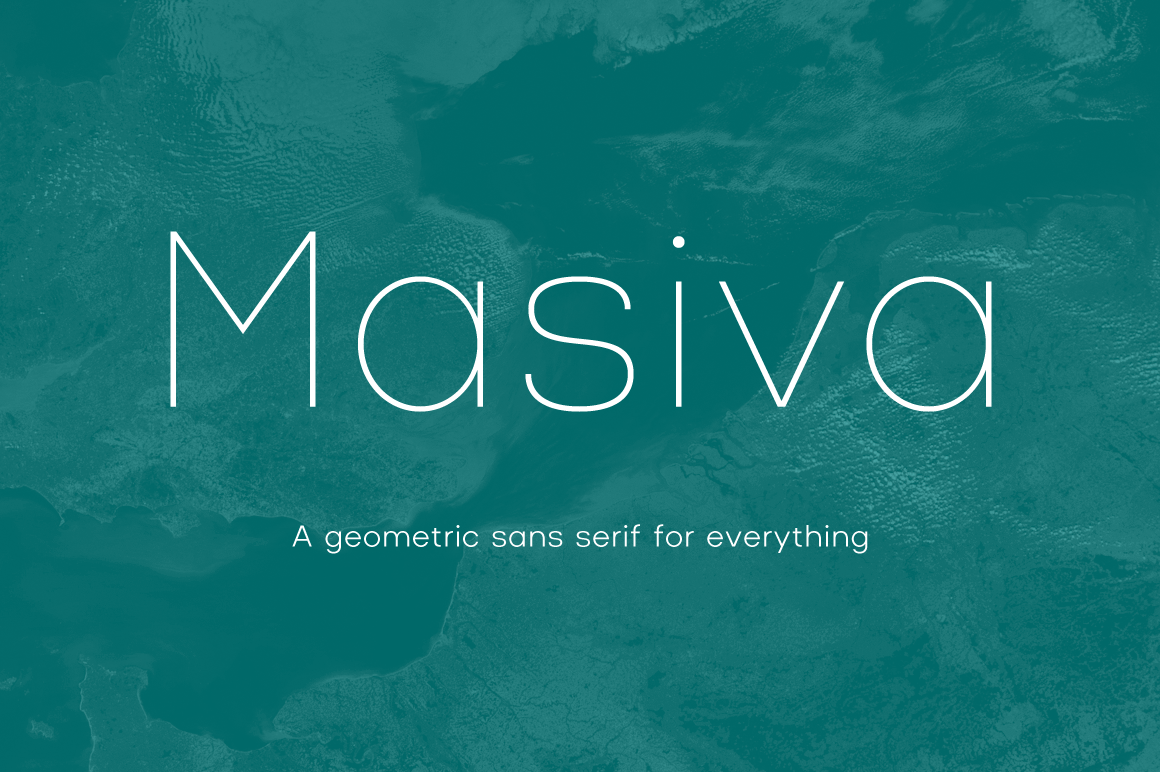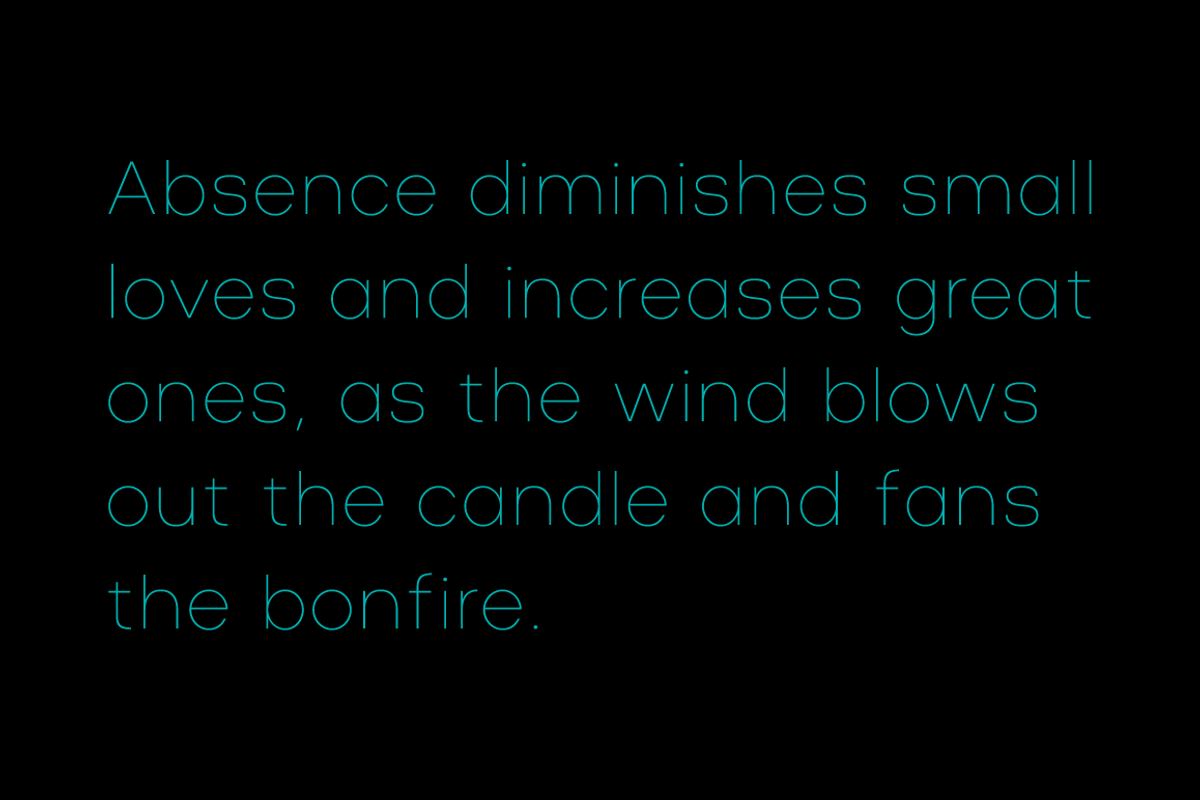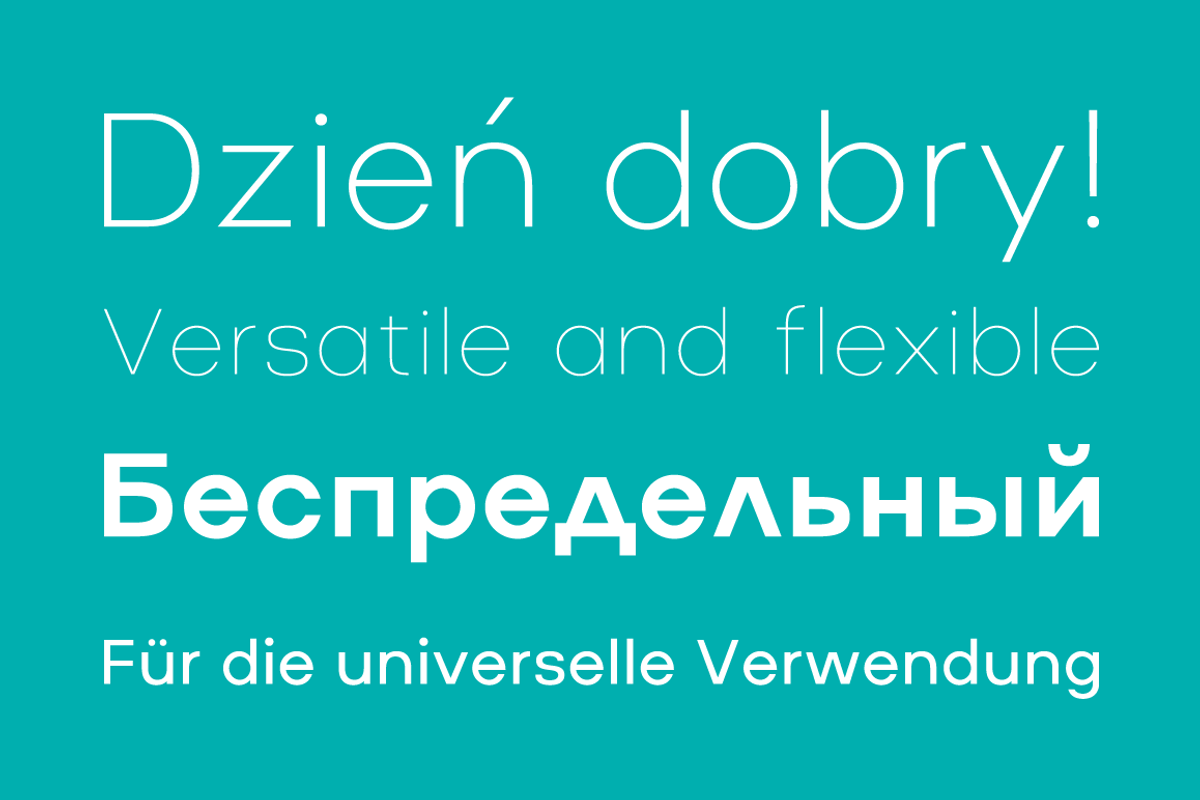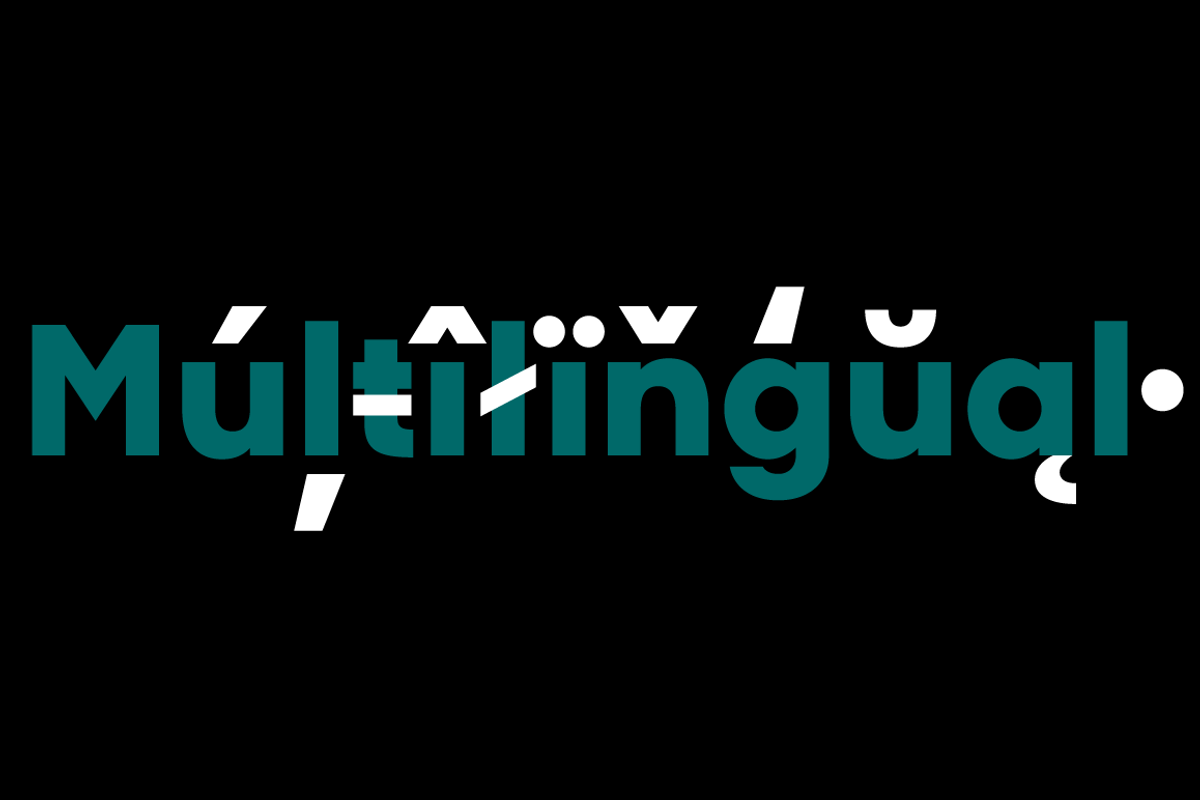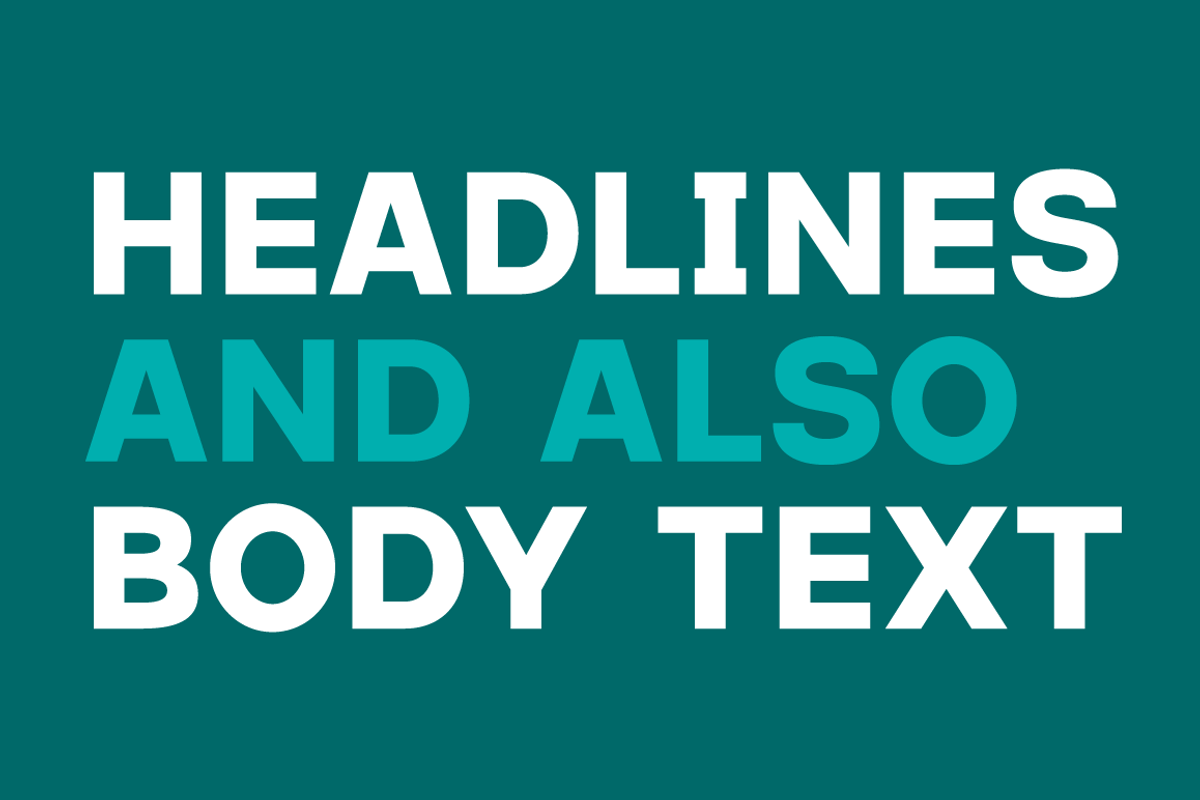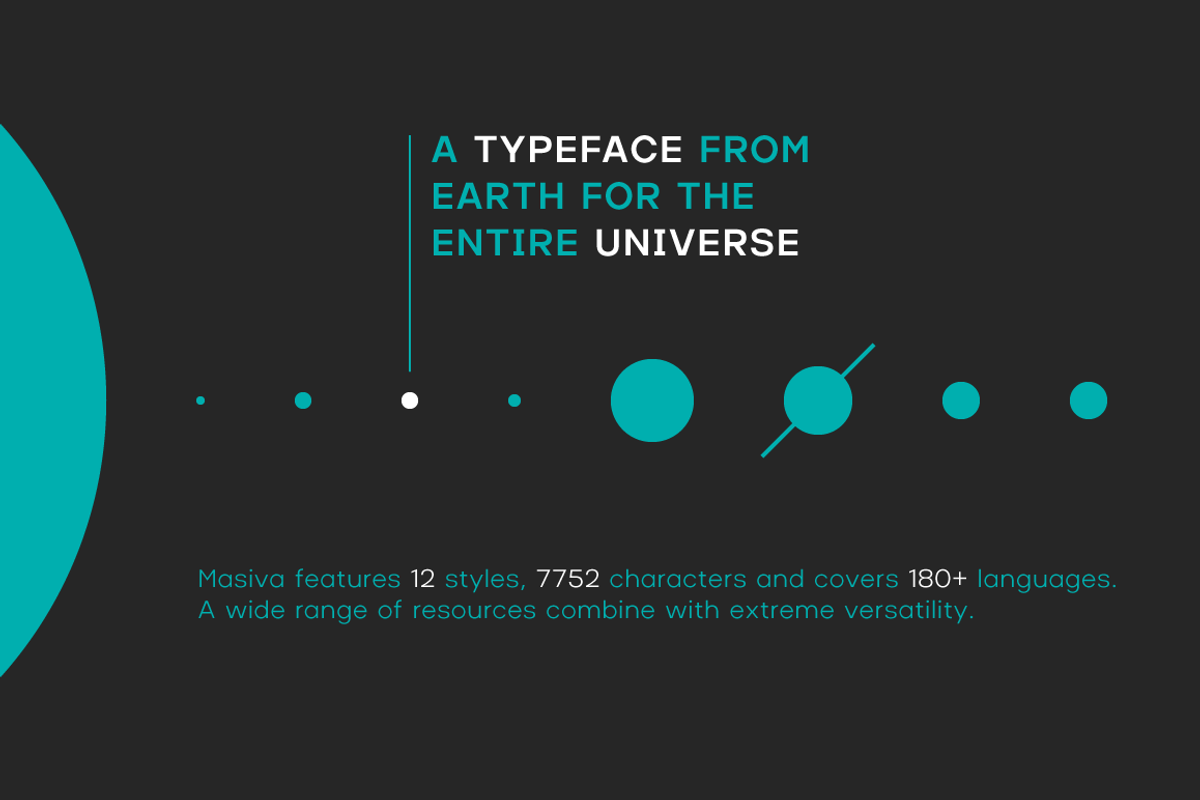
Masiva Font Family
Designer: Pablo Balcells
Design date: 2019
Masiva font family has been designed for Graviton Font Foundry by Pablo Balcells in 2018. It is a geometric sans serif typeface with carefully crafted curves that provide a soft and pleasant appearance. Its universal shapes make it suitable for any kind of project, text length and size. It can be used as a powerful display typeface in big sizes. Also, thanks to its legibility, it can be used in long body texts in very small sizes and everything in between. It performs just as well in classic style projects as in contemporary or modern ones.
Masiva consists of 12 styles, each containing small caps and glyph coverage for several languages.